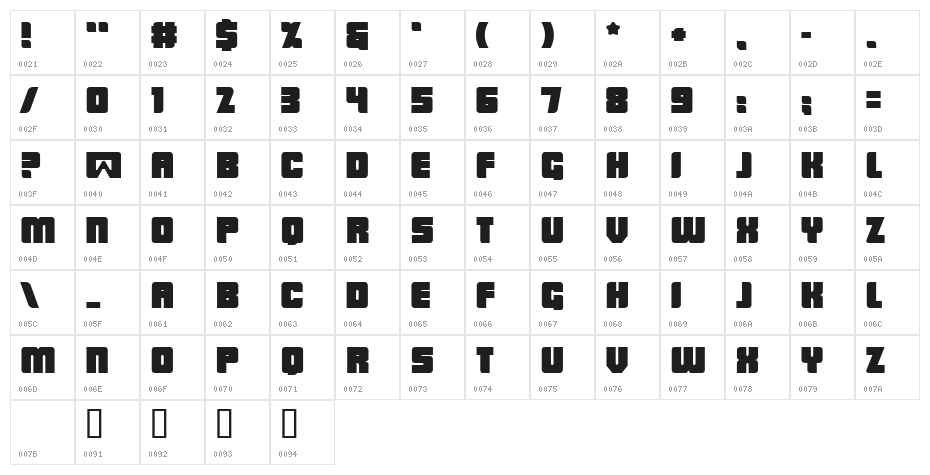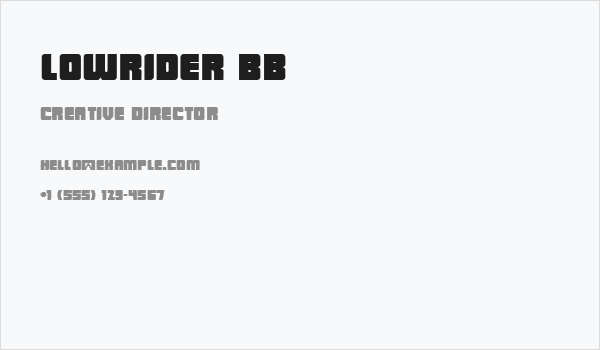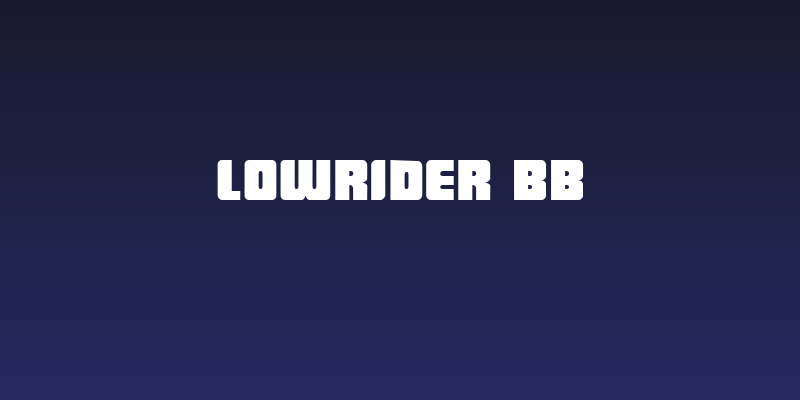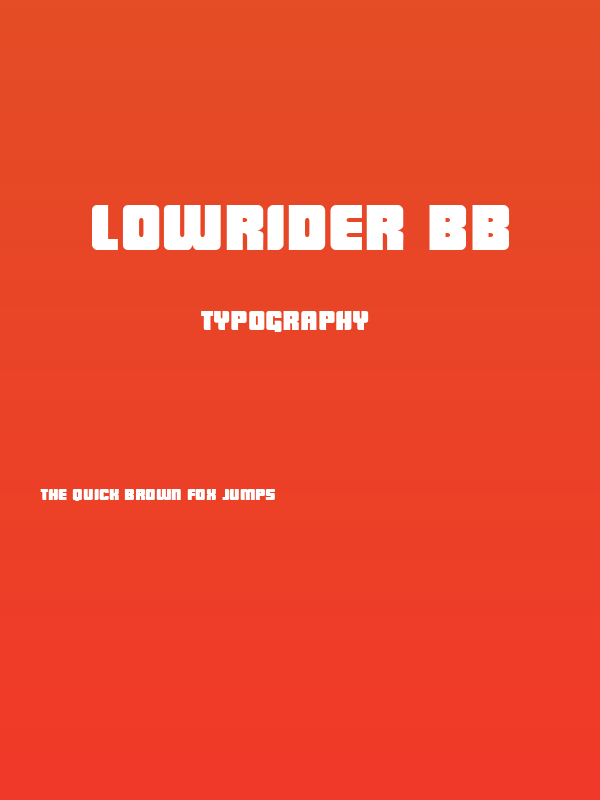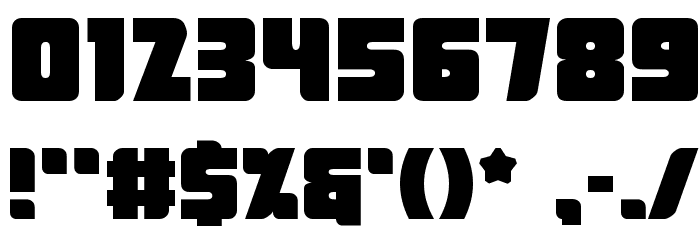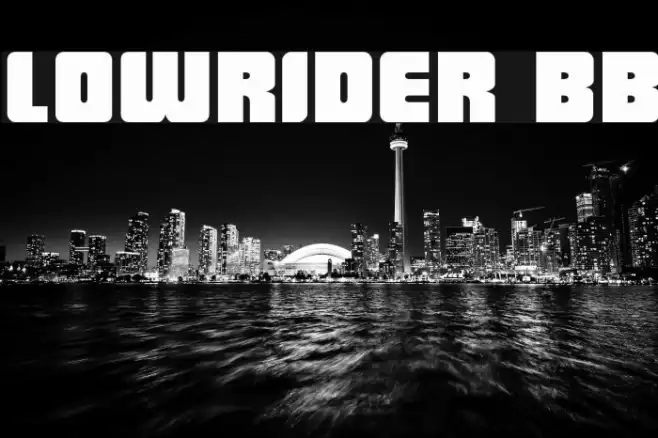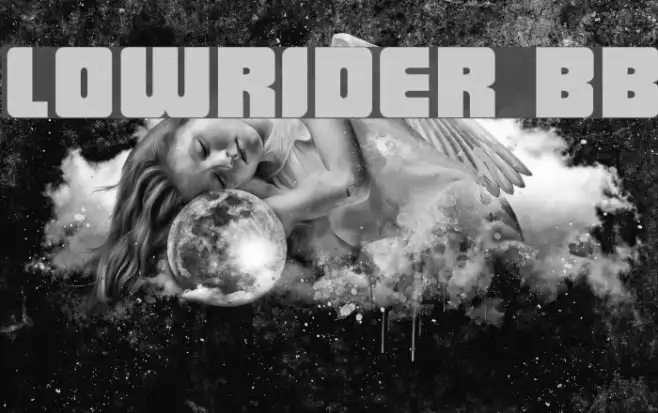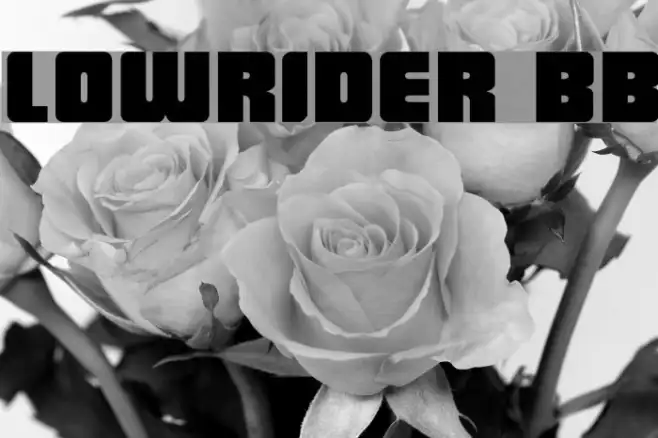
LowRider BB Font
LowRider BB Description
This font features a bold, blocky design with a strong presence, characterized by its thick strokes and geometric shapes. The uppercase and lowercase letters maintain a consistent width, creating a uniform appearance. The numbers and special characters follow the same robust style, ensuring visual harmony across all elements. Its design is reminiscent of retro or vintage styles, making it suitable for projects that require a bold statement. The font's heavy weight and solid structure make it ideal for capturing attention, while its clean lines ensure readability.
LOWRIDER-BB UPPERCASE
LOWRIDER-BB LOWERCASE
LOWRIDER-BB OTHER CHARS
| Proposed Projects | Ideal for posters, logos, headlines, and any design needing a strong, vintage aesthetic. |